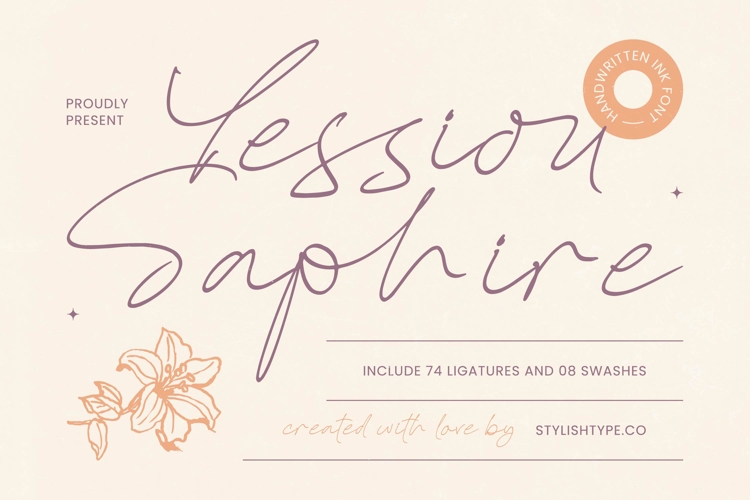
Yessiou Saphire - Handwritten Ink Font
Experience unparalleled design versatility with Yessiou Saphire - Handwritten Ink Font. Crafted for intricate creative expression, it boasts an impressive collection of 74 ligatures and 08 expressive swashes. These thoughtful additions ensure a seamlessly connected, natural handwritten appearance, allowing for extensive customization and eliminating repetitive character forms. Achieve a bespoke, high-end finish that truly captivates and differentiates your work.